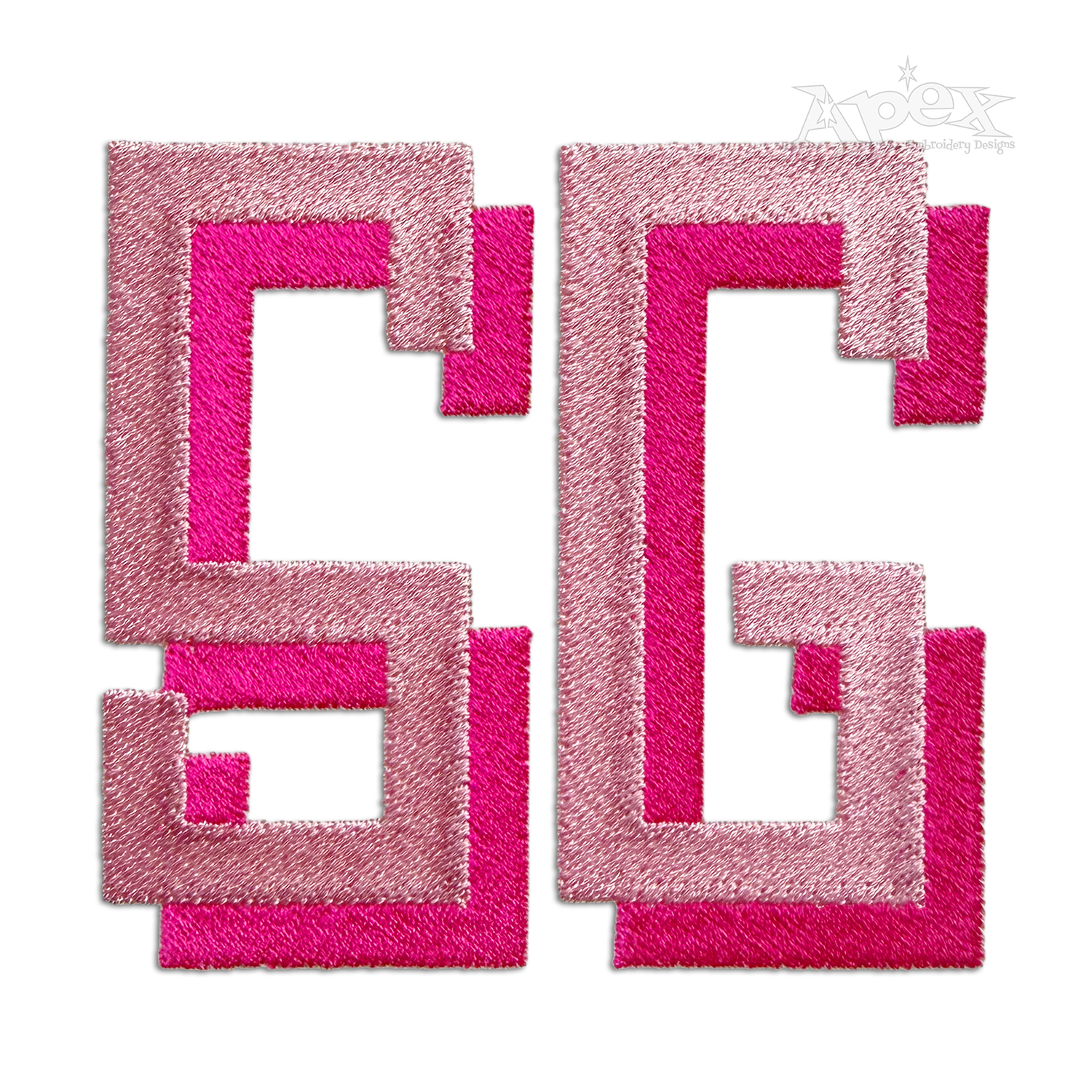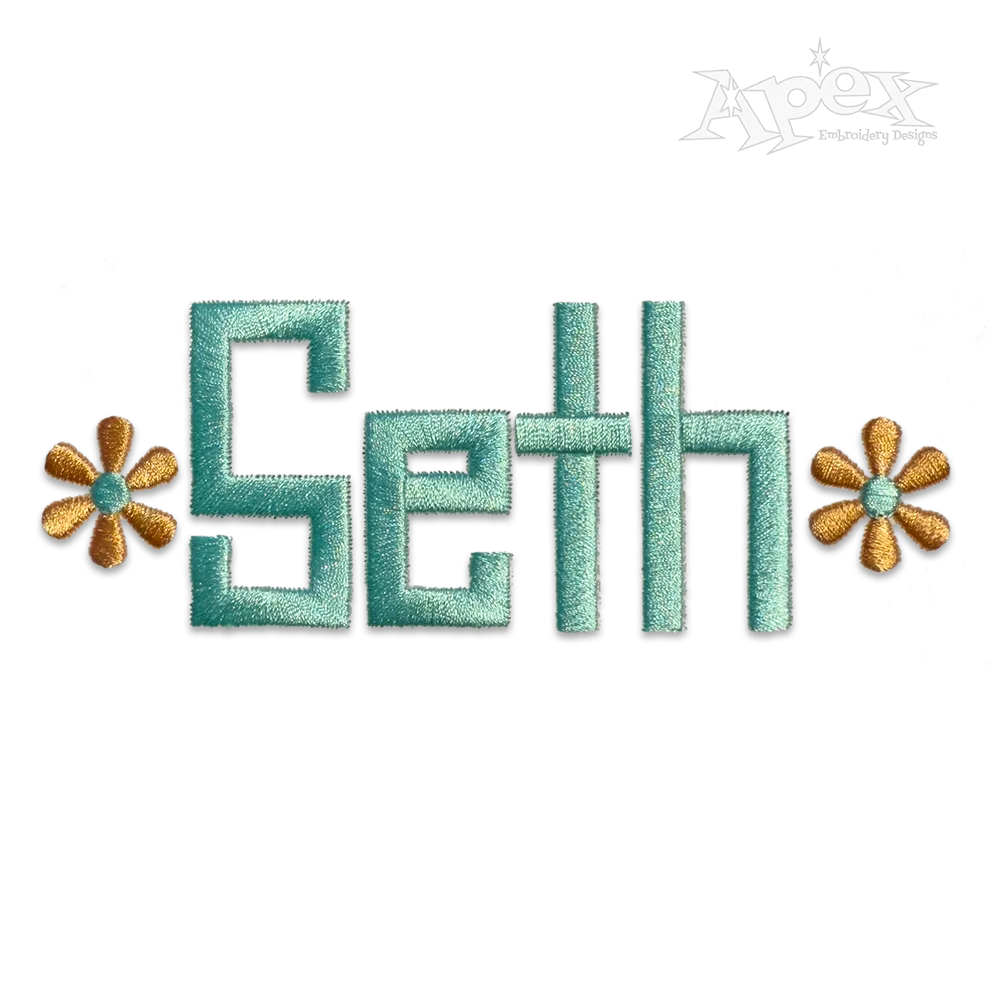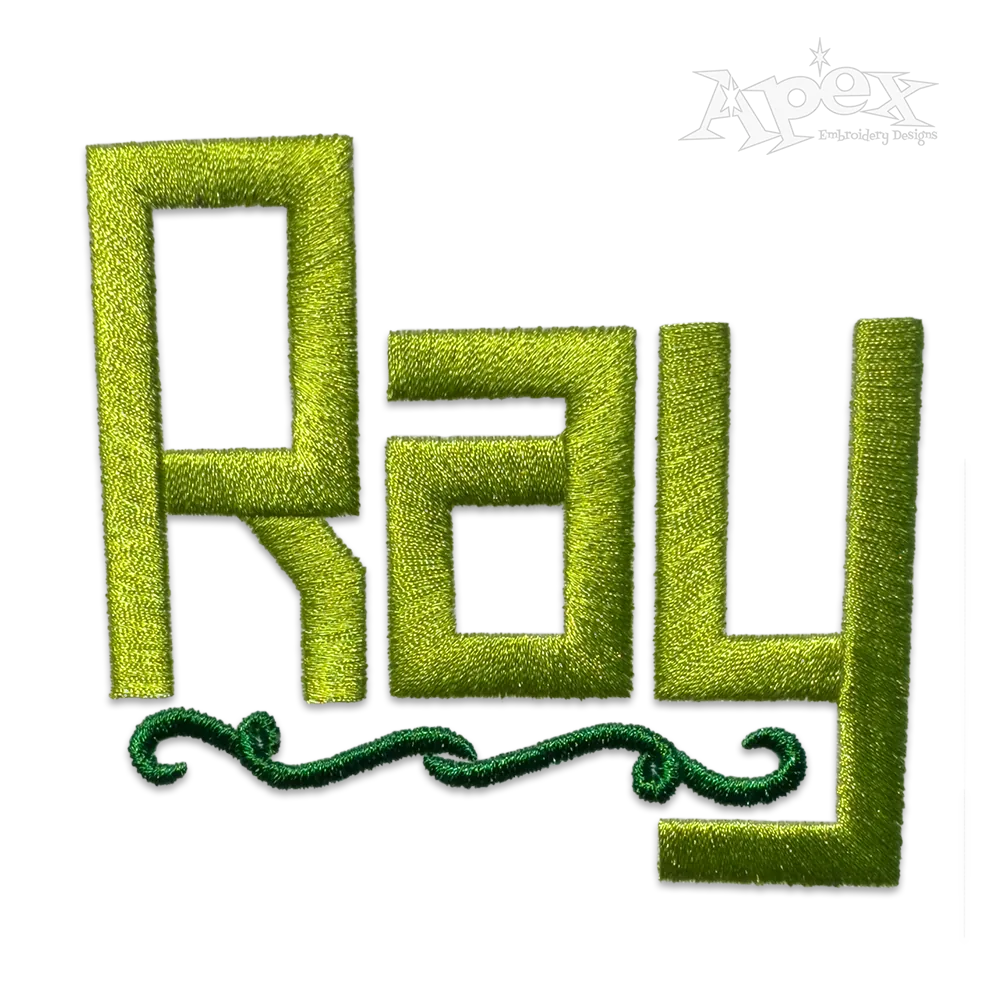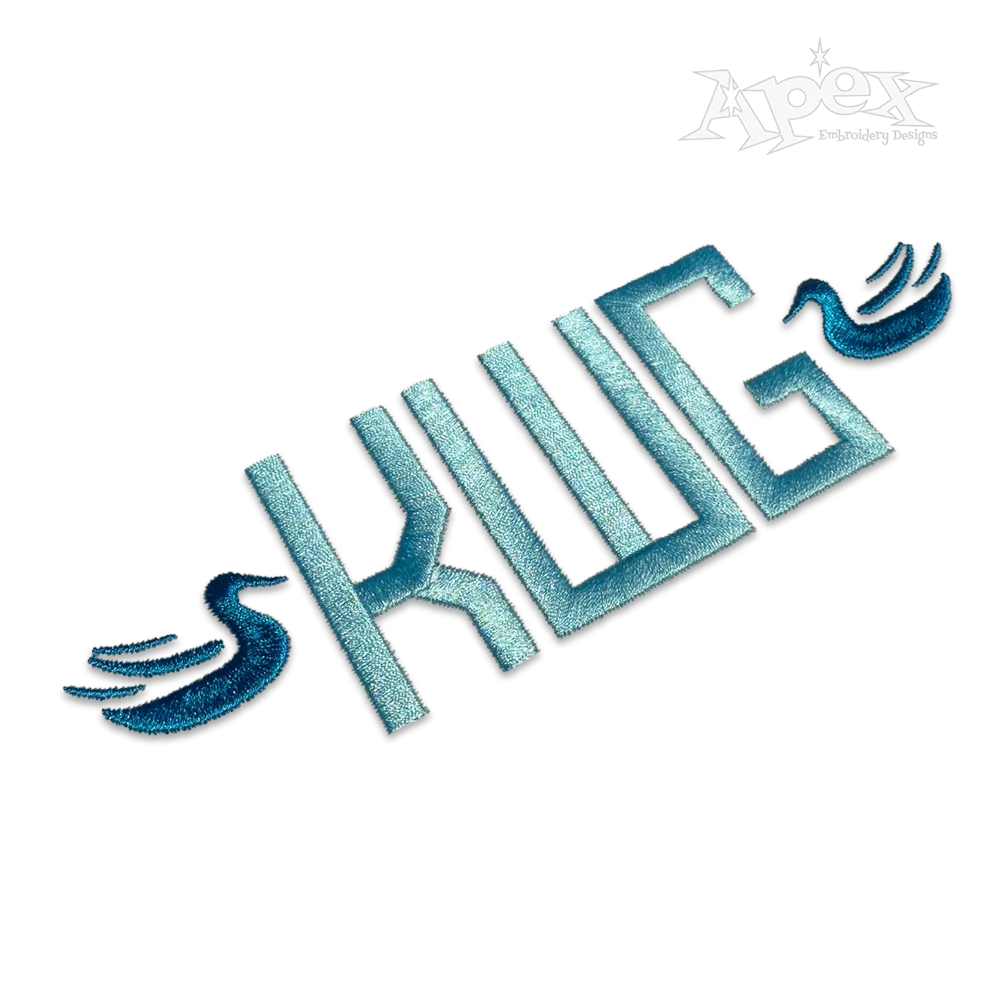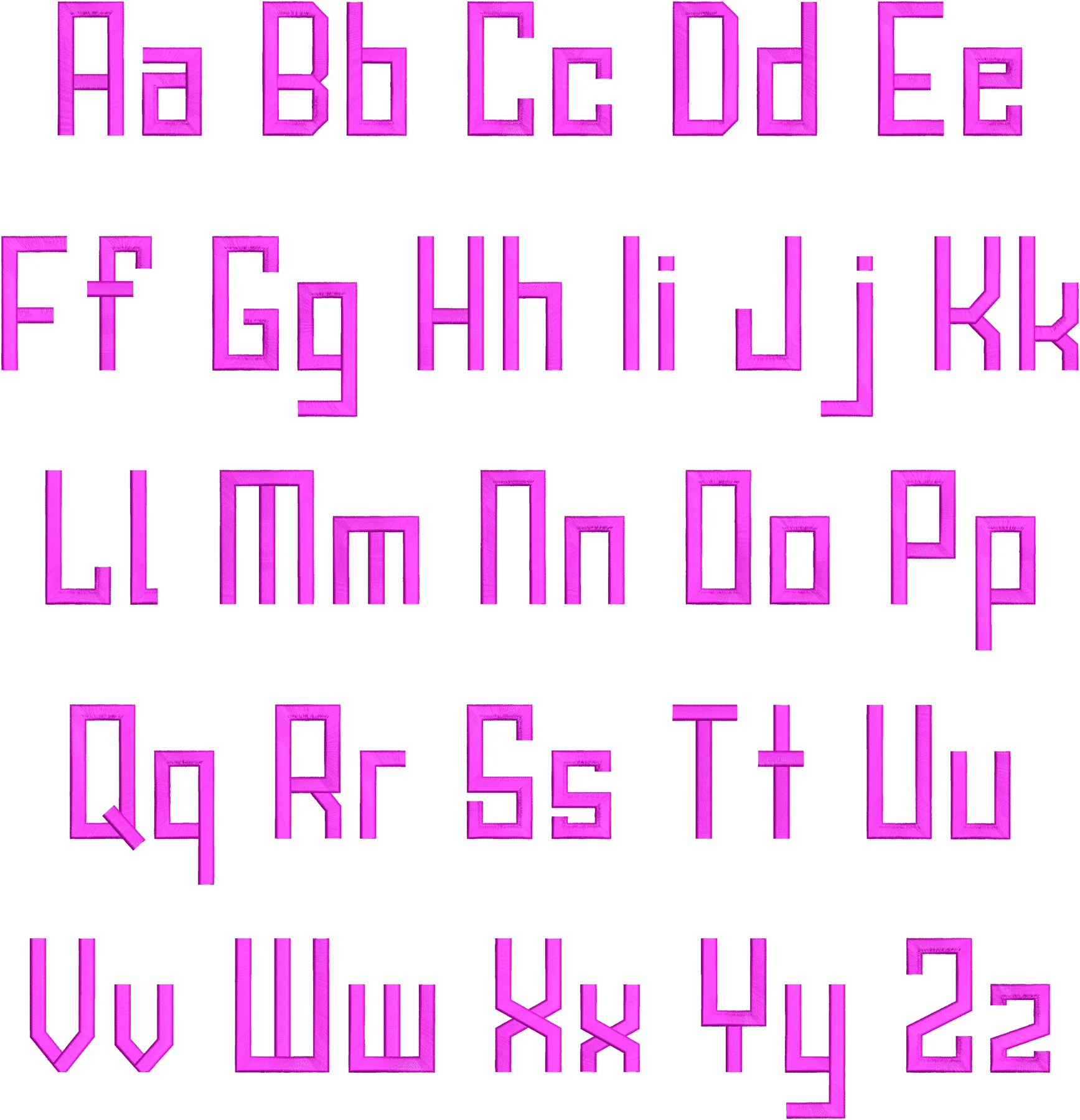
Modern Block Embroidery Font
There is an undeniable joy in crisp, unpretentious letterforms that command attention with effortless charm. When sculpting the Modern Block Embroidery Font at Apex Embroidery Designs, our goal was to channel that beloved mid-century collegiate aesthetic while refining every contour for modern bespoke stitching. Each glyph is crafted with confident, balanced proportions and a luscious, high-density satin stitch that catches the light like liquid thread. Designed to bring character and visual weight to every needle drop, this bold satin alphabet brings a vibrant, playful presence to personalized apparel and heirloom keepsakes alike.
This complete 52-character collection features both uppercase and lowercase letterforms, engineered to seamlessly build custom names, monograms, and words across four versatile heights:
Project Ideas for Modern Block Embroidery Font
The punchy, retro-modern aesthetic of this typeface makes it remarkably adaptable across countless custom monogramming and gifting projects:
- Retro Children's Loungewear: Stitch standout names across vintage-washed crewneck sweatshirts, fleece joggers, and denim jackets.
- Bespoke Nursery Heirlooms: Personalize waffle-knit baby blankets, nursery pillows, and customized growth banners with a timeless font that grows with your child.
- Adventure Gear & Bags: Embellish heavy canvas boat totes, lunch bags, and children's school backpacks with bold, unmistakable identification.
- Resort & Bath Linens: Create modern luxury bath sets, plush beach towels, and pool loungers with crisp, highly readable lettering that withstands laundering.
- Personalized Family Apparel: Create cohesive sibling sets, matching vacation wear, and customized team apparel with a cheerful, unisex typographic style.
Thanks to its uniform block proportions and structural weight, Modern Block lends itself effortlessly to both traditional and playful placements:
- Center Chest: Positioned across the chest on hoodies and tees, this font provides instant collegiate cool with balanced horizontal visual flow.
- Pocket Crest: Stitch the 1-inch or 2-inch sizing slightly above or directly on a shirt pocket for a tailored, personalized accent.
- Backpack Flaps & Duffel Straps: Align larger sizes horizontally across utility flaps or centered on duffel side pockets for bold, clear visibility.
- Corner Diagonals: Angle a child's name across the mitered hem of a baby blanket or towel corner to combine practical marking with artistic presentation.
Modern Block Embroidery Font Craft & Letterform Details
Great embroidery lettering relies on meticulous structural digitization, and the Modern Block alphabet was engineered from the ground up for clean execution. Rather than relying on rigid digital type conversions, each stroke is drawn with calibrated turn angles that guide thread smoothly around corners without unsightly bunching or thread buildup. The crossbars and vertical stems maintain exact proportional consistency across all four sizes, creating clean geometric harmony across every name you assemble.
Behind the visible satin surface lies a carefully calculated lattice of traveling stitches and supportive underlay. This foundational base stabilizes the fabric grain, elevates the top satin stitches, and counteracts fabric push-and-pull forces. The result is razor-sharp outer margins, plush tactile dimension, and a mirror-smooth satin finish that embroiders flawlessly across everything from stretchy French terry to rugged cotton canvas.